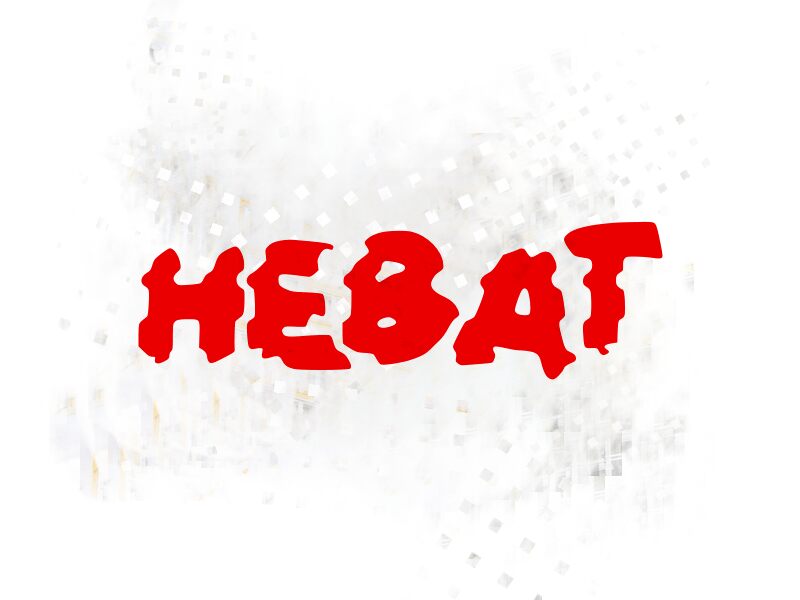
HEBAT
Hebat font by wep is a distorted bold display typeface inspired by playful retro elements, organic shapes, and chunky aesthetics. It highlights its friendly appearance with smooth curves and a unique visual form that captures the attention of everyone who sees it in an enjoyable atmosphere. Enjoy a new creative experience with this artistically designed free font.
Use Hebat for flyers and posters, signage and billboards, online translations for websites (homepages), social media platforms such as Instagram or Facebook, magazine covers, book covers (children’s books), advertisements and branding designs for food products, stickers and labels.